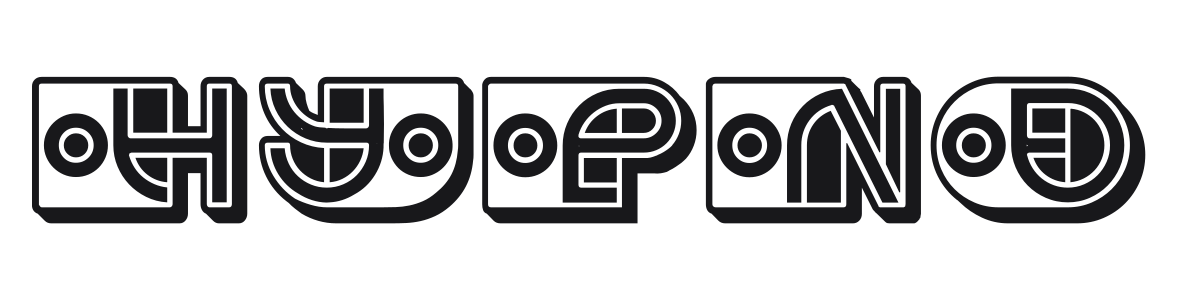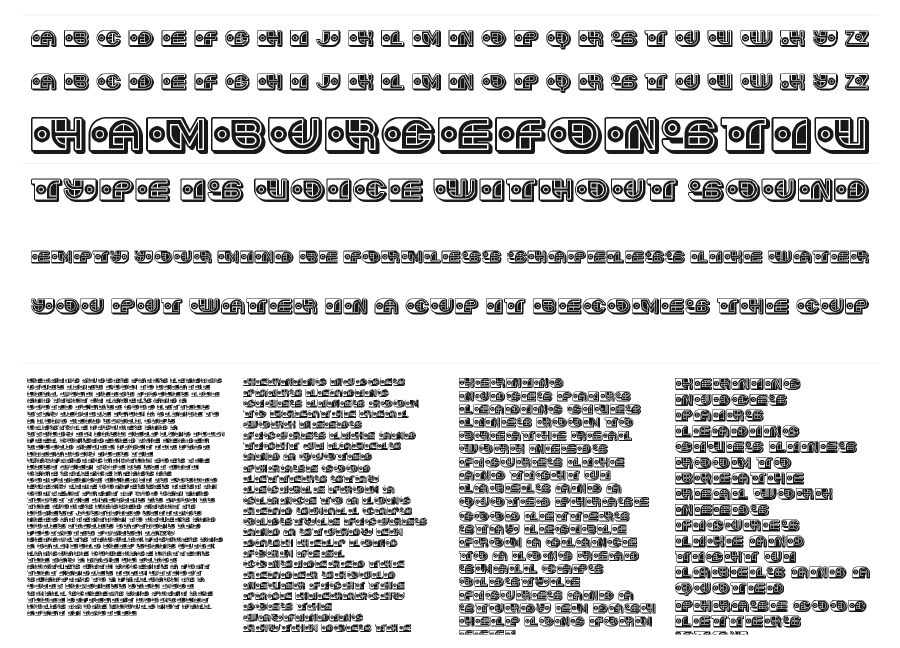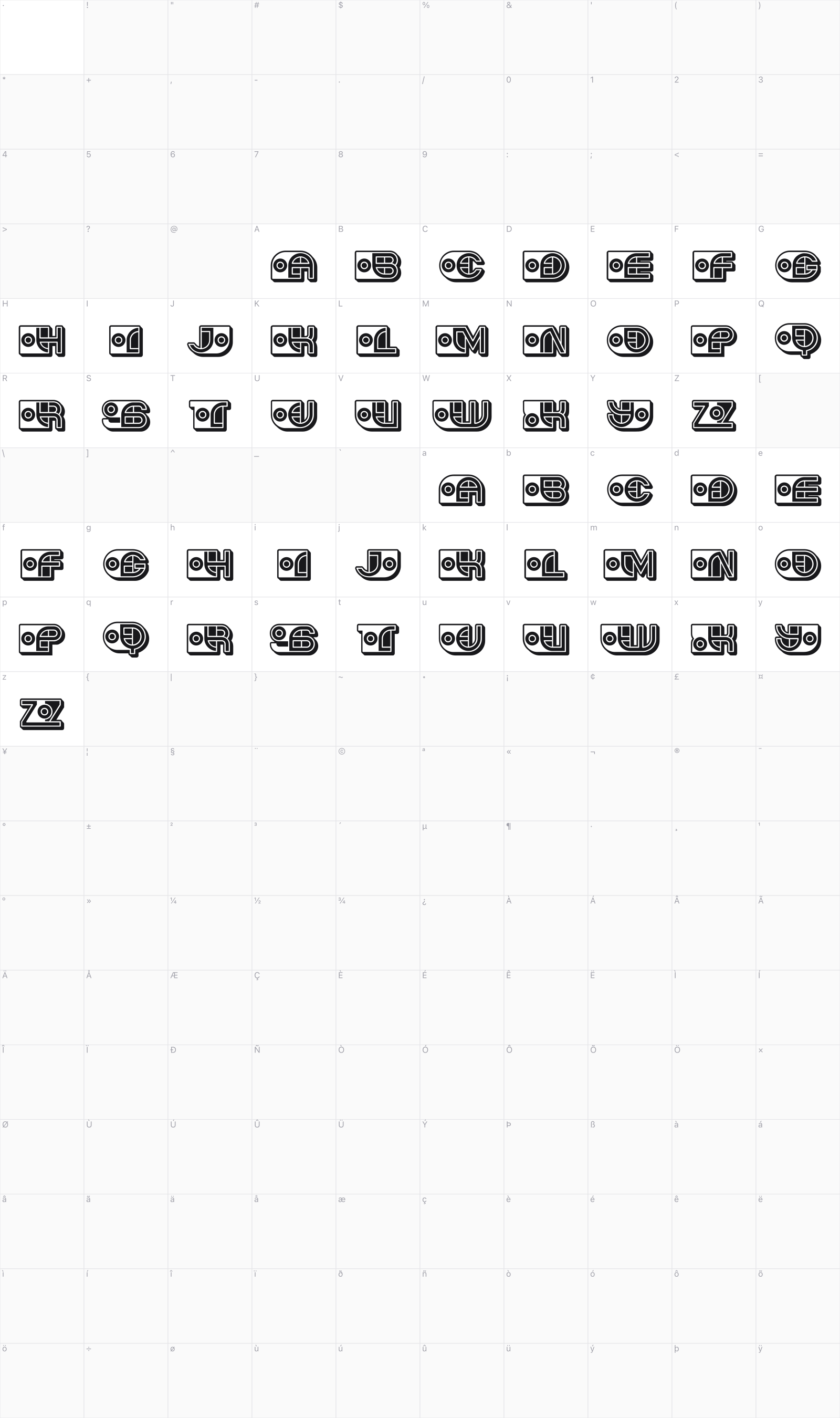
Hypno
Hypno is a geometric display font that wraps every character inside a rounded square frame filled with concentric inline stripes, producing a hypnotic op-art effect. The design draws heavily on 1960s and 1970s psychedelic typography, where the decorative structure is inseparable from the letter shape itself. Best used large, where the layered geometry can fully register.